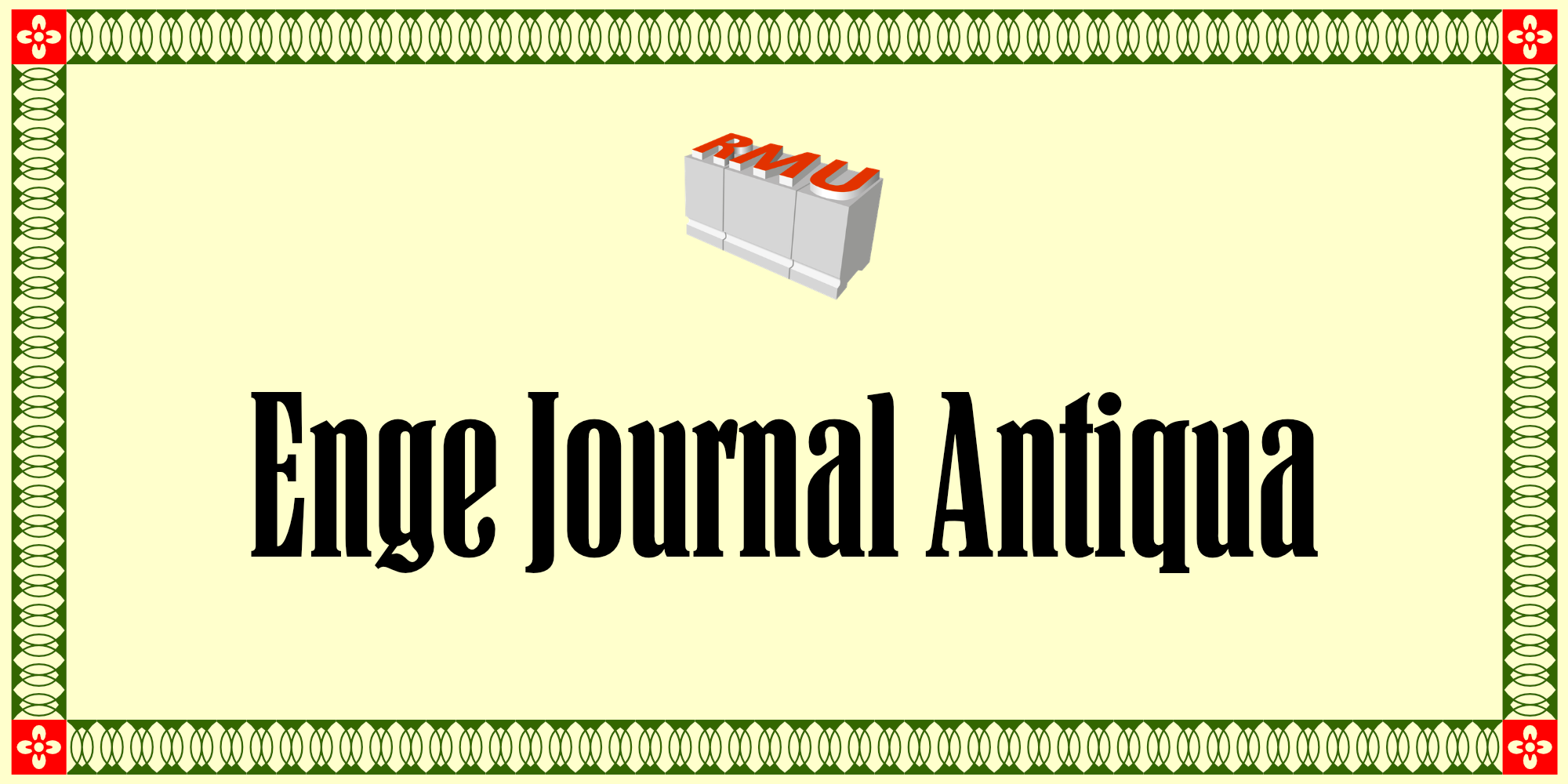
Enge Journal Antiqua Font Free Download is a refined serif typeface that brings a touch of classic elegance and readability to your design projects. Please note: you must purchase a license for commercial use — this font is available as a free download strictly for personal and testing purposes.
Ideal for book typography, editorial layouts, invitations, branding, and packaging, Enge Journal Antiqua Font Free Download offers a timeless aesthetic that enhances the sophistication of any creative work.
What makes this font exciting is its graceful serifs, balanced stroke contrast, and clear legibility, evoking the charm of traditional print while remaining versatile for modern use.
The Enge Journal Antiqua font family includes Regular, Italic, Bold, and Bold Italic styles, providing designers with ample options to craft expressive and elegant typography.